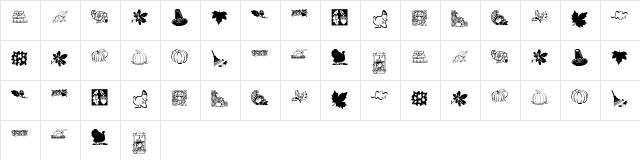
KR Harvest Dings Regular
Design Context for KR Harvest Dings Typeface
KR Harvest Dings is a composed and adaptable typeface that performs quietly and consistently across a wide range of design contexts.